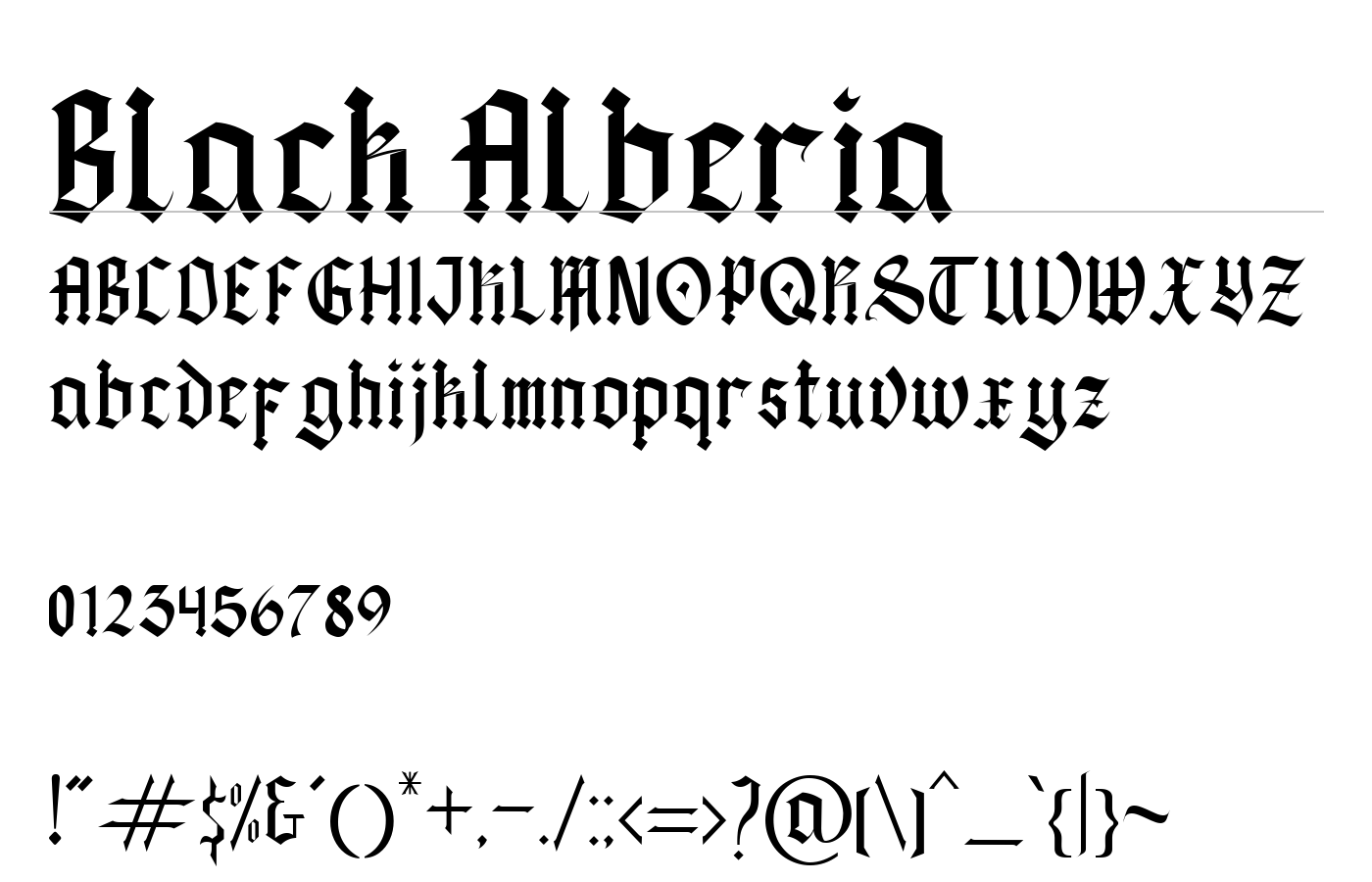
Black Alberia is a striking blackletter typeface with bold, angular strokes and strong contrast between thick and thin lines, giving it a dramatic and historic Gothic style. Its sharp, geometric forms and ornamental flourishes evoke a medieval, vintage feel perfect for branding that seeks a dark, intense, or traditional European flair. This font works well for headlines, logos, and decorative uses where a commanding and distinctive presence is needed.
Black Alberia Font
About Black Alberia Font